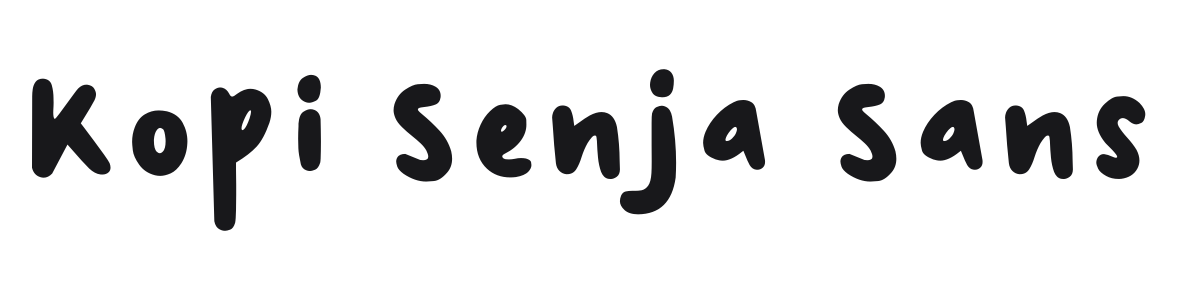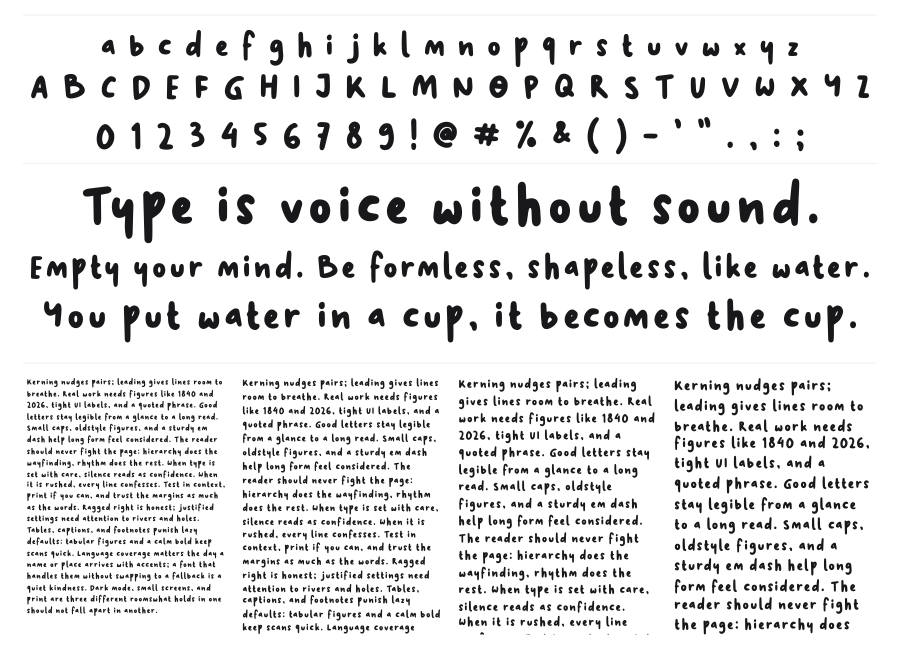
Kopi Senja Sans
Kopi Senja Sans is a bold handwritten sans with a chunky, marker-drawn character and soft rounded terminals. The slight irregularity in spacing and shape gives it a genuine hand-lettered feel without looking rough or unpolished. It works well for café branding, packaging, and any context that calls for warmth and approachability.